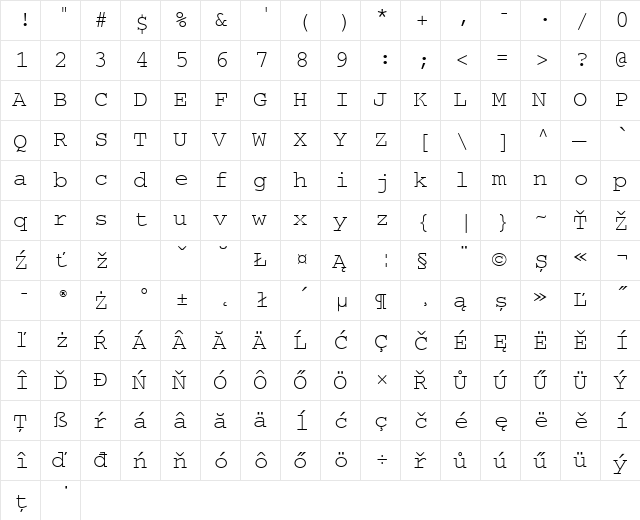
Courier CE Regular Font Preview
Courier CE Regular
Design Context for Courier CE Typeface
Courier CE brings the precise, column-aligned rhythm of monospaced typography to designs that value technical clarity and systematic order.